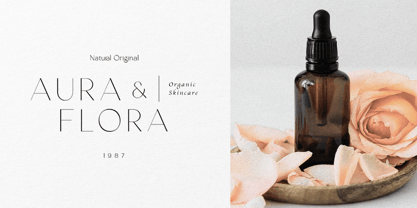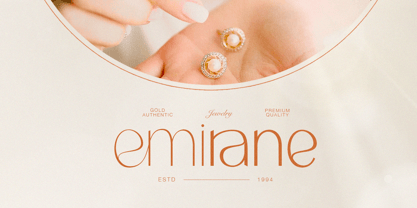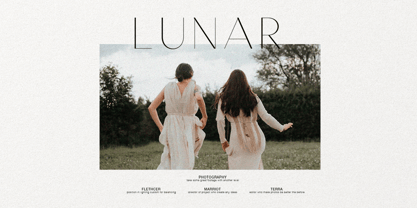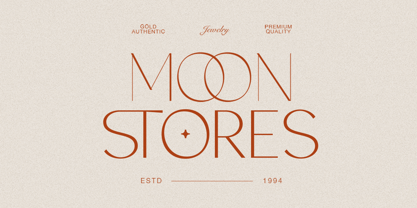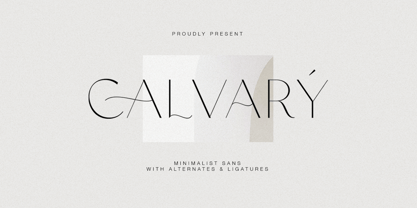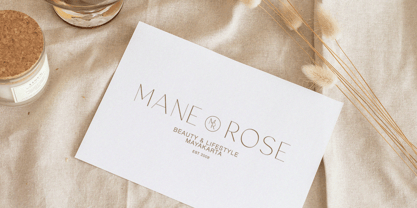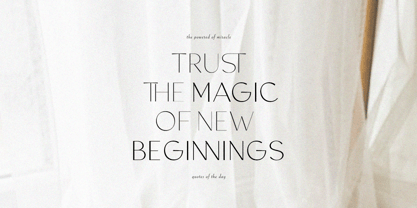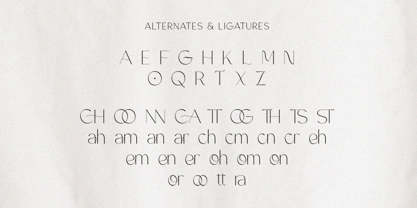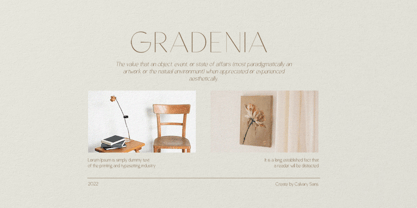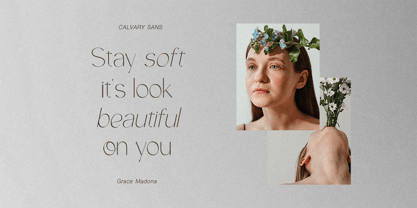
Calvary
von Bale Type
Die Schriftfamilie Calvary wurde von Sarid Ezra, Dzikrul Aulia entworfen und von Bale Type veröffentlicht. Calvary enthält 4 Stile und Familienpaketoptionen.
Calvary is a light and luxury sans with bunch of ligatures and alternates. You can use this font for any project especially for project that need to looks elegant and luxurious. With beautiful and delicate ligatures and alternates, this font will make your project more minimalist yet stunning. Combine the ligatures and alternates with the regular base to get the best appearance. This font also support multi language!